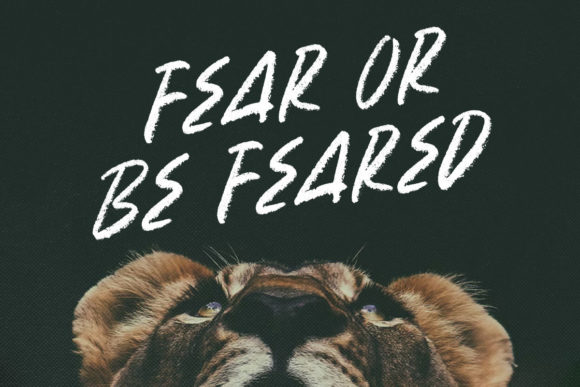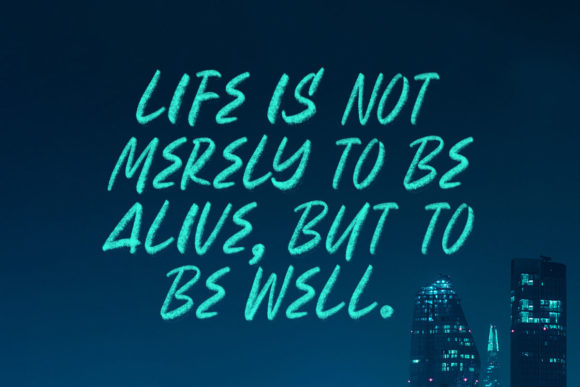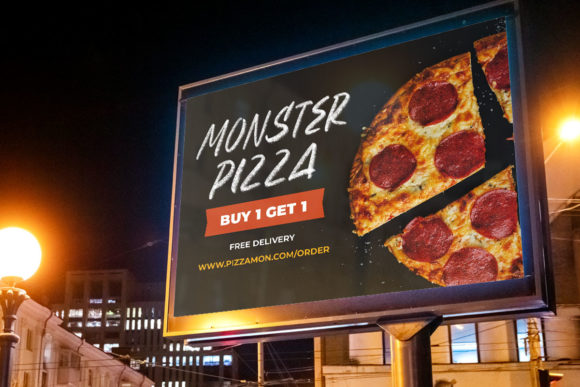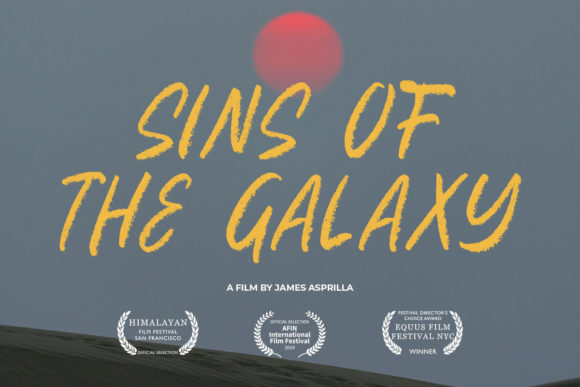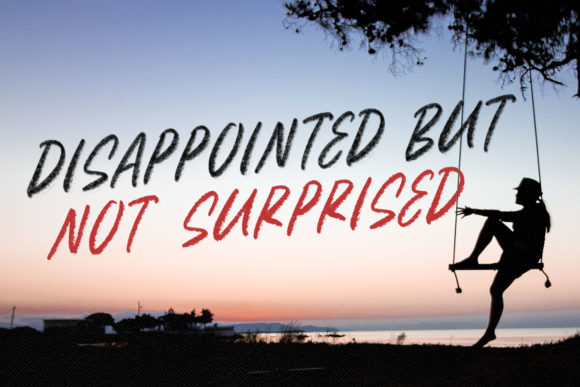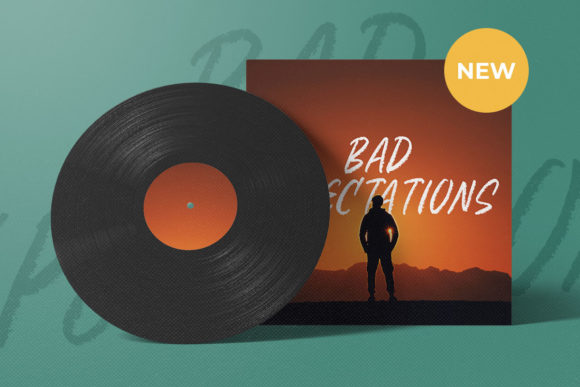
Introduction to Monstroux Font
Monstroux is a cool and brushed display font.
This font is suitable for designs such as t-shirts, sportswear, logos, advertisements, clothing, and more .
Key Features of Monstroux Font
Why Choose Monstroux Font?
Monstroux Font offers exceptional quality and versatility, making it a valuable addition to your design toolkit. Whether you’re creating for personal projects or commercial use, Monstroux Font delivers professional results.